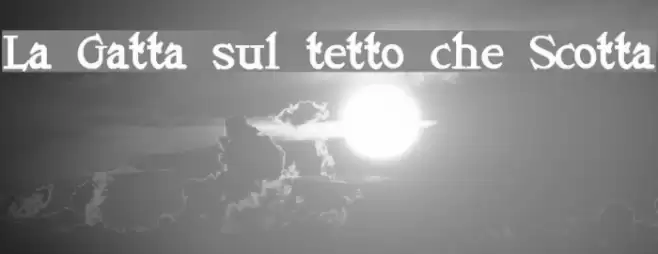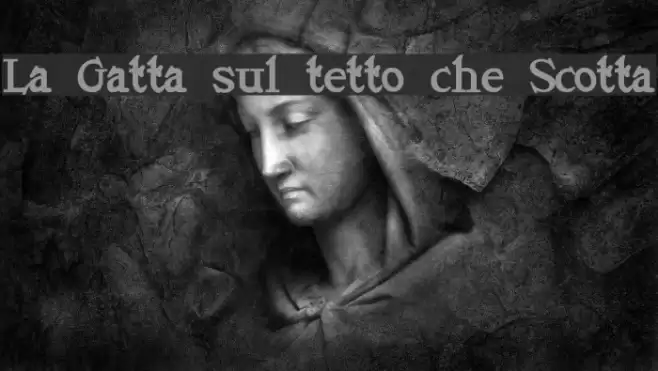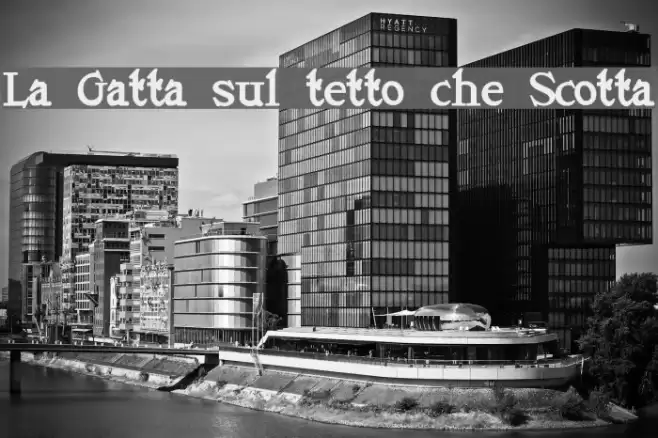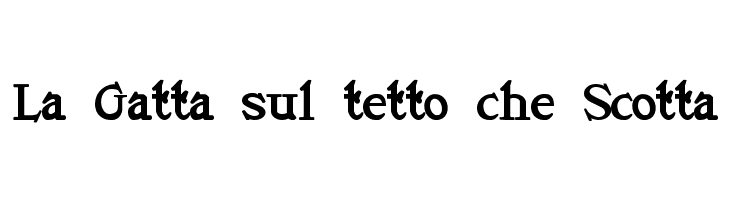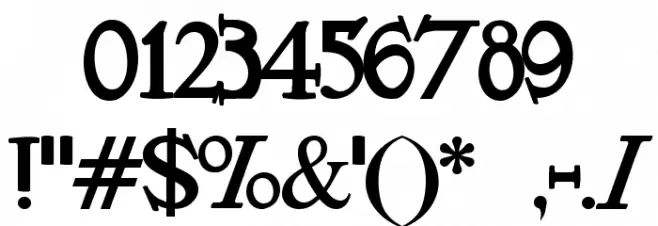
La Gatta sul tetto che Scotta Font
La Gatta sul tetto che Scotta Description
This font features a bold and dramatic style with strong serifs and high contrast between thick and thin strokes. The uppercase letters are particularly striking, with sharp angles and pronounced serifs that give them a commanding presence. The lowercase letters maintain a consistent style, with rounded forms and distinctive serifs that enhance readability. The numerals are equally bold, ensuring they stand out in any context. Special characters are designed with the same attention to detail, making them cohesive with the rest of the font. Overall, this font exudes a classic yet bold aesthetic, perfect for making a statement.
A bold, high-contrast serif font with dramatic serifs and strong presence from Uncategorized fonts.
- Proposed Projects: Ideal for headlines, posters, branding, and any project requiring a bold, classic look.
- Overall Style: Classic